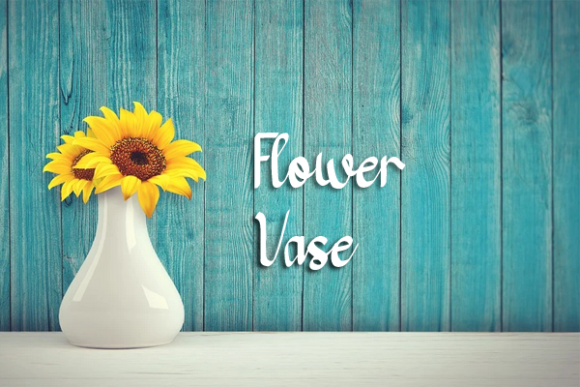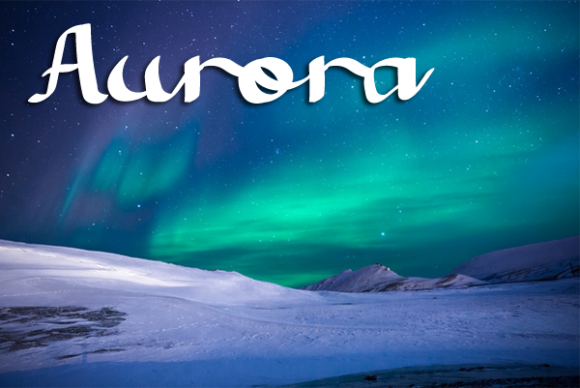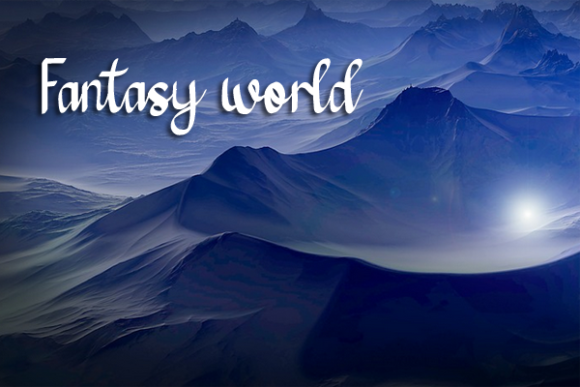
The Designer Font: A Delicate and Elegant Handwritten Masterpiece
I’ll never forget the moment I stumbled upon the Designer font. I was working on a project for a client who wanted a elegant and sophisticated look, but I was struggling to find the right font to convey that feeling. That’s when I discovered Designer – a delicate and elegant handwritten font that instantly captured my heart. Its distinct and well-rounded letters make it a masterpiece, and I knew right then that it was the perfect fit for my project.
- ✨ Delicate and elegant: Designer font is perfect for projects that require a touch of sophistication and refinement.
- ✅ Versatile: This font is incredibly versatile and can be used for a wide range of projects, from wedding invitations to branding and packaging.
- 💕 Handwritten charm: The font’s handwritten style gives it a unique and personal touch that’s hard to find with other fonts.
Of course, no font is perfect, and Designer has a few small quirks to be aware of:
- 🤔 Limited use in body text: While Designer is perfect for headings and titles, it may not be the best choice for body text due to its delicate nature.
- ⚠️ Requires careful pairing: Designer font can be a bit overpowering when paired with other bold fonts, so it’s essential to choose complementary fonts carefully.
The Story Behind Designer Font
Designer font was created by a talented type designer who wanted to craft a font that was both elegant and versatile. The designer drew inspiration from classic handwritten fonts and infused them with a modern twist. The result is a font that’s both timeless and trendy.
| Font Name | Designer Font |
| Author | AA studio |
| What is the best use for Designer font? | Designer font is perfect for projects that require a touch of elegance and sophistication, such as wedding invitations, branding, and packaging. |
| Can I use Designer font for body text? | While Designer font is beautiful, it may not be the best choice for body text due to its delicate nature. It’s better suited for headings and titles. |
| Is Designer font available in different styles? | Designer font comes in a range of styles, including regular, italic, and bold. You can also access OpenType features and glyphs to customize the font to your needs. |